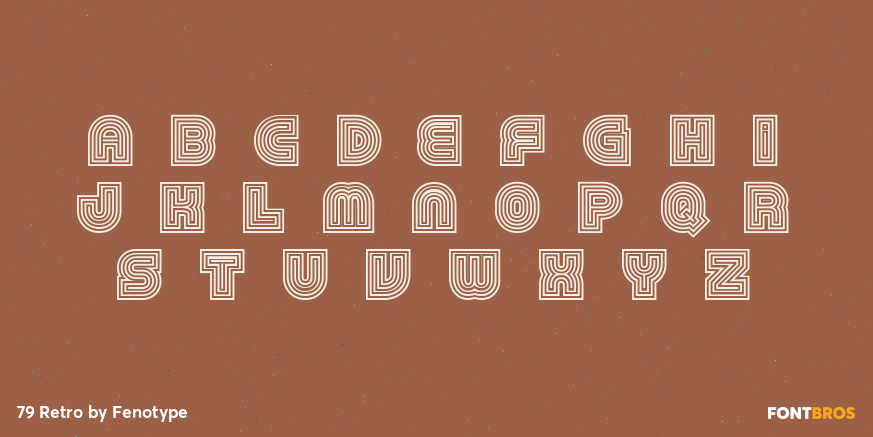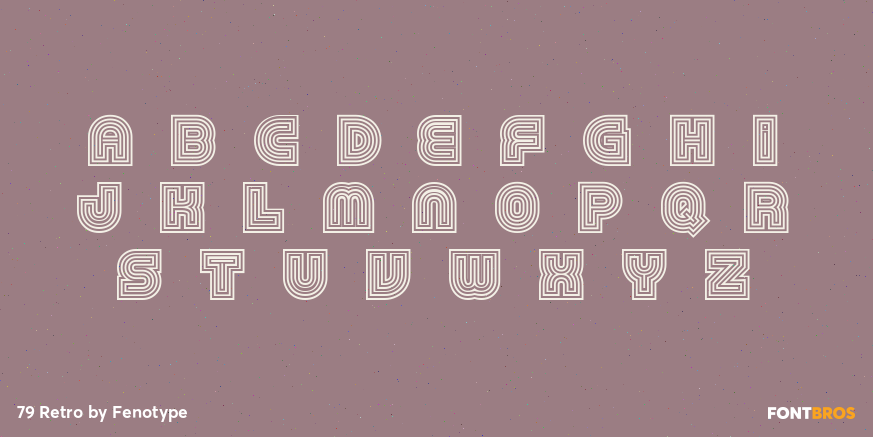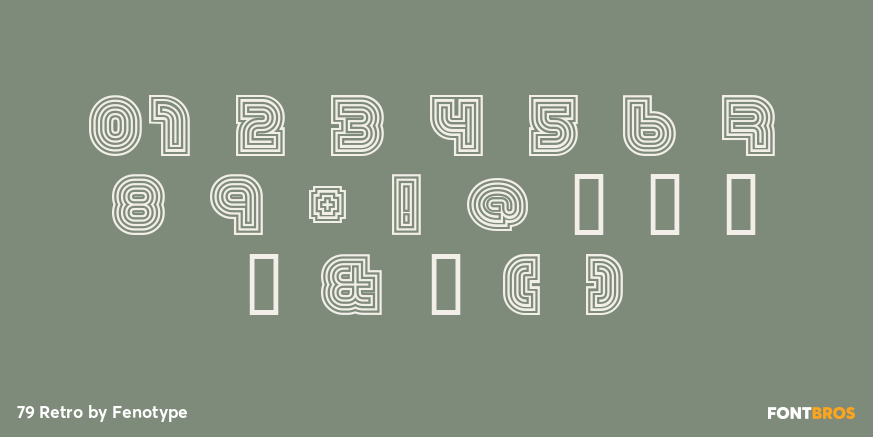
79 Retro
This font features a bold, geometric design with a distinct retro vibe, characterized by its layered, concentric line patterns that create a sense of depth and movement. The uppercase and lowercase letters maintain a consistent style, with each character exhibiting a unique interplay of lines that form a cohesive visual rhythm. The numerals and special characters follow the same design principles, ensuring uniformity across the entire typeface. Its structured yet playful appearance makes it ideal for projects that aim to capture a vintage or nostalgic aesthetic.